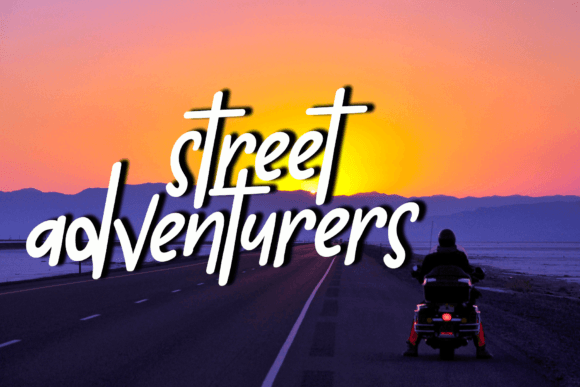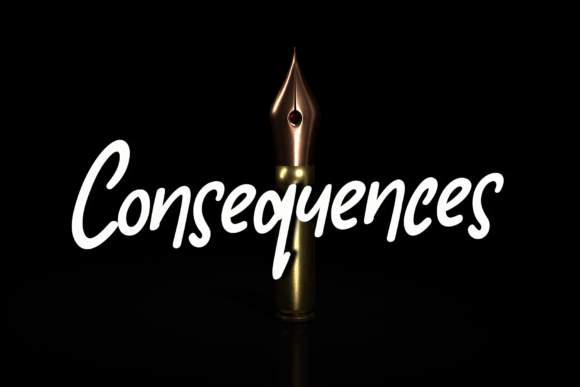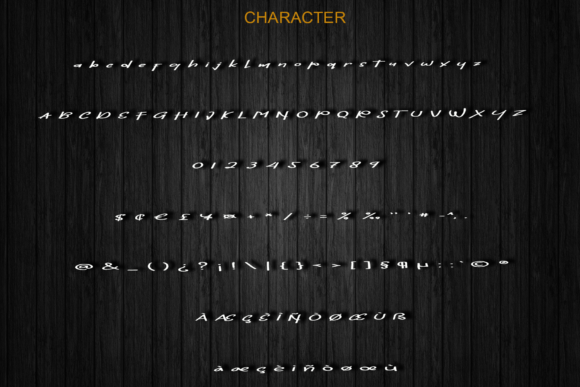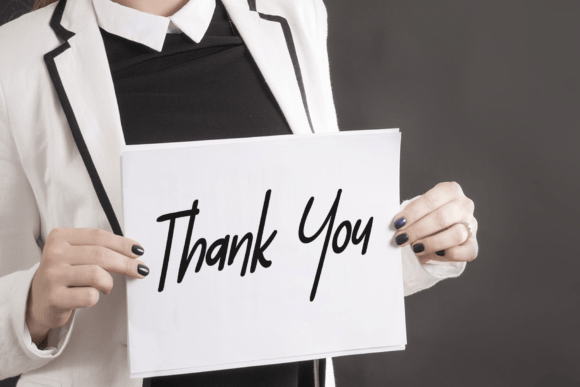
Introduction to Against History Font
Against History is a clean, relaxed and friendly handwritten font.
Suitable to a wide variety of designs due to its neat and simple style, this font has the potential to become your favorite go-to font, no matter the occasion .
Against History Font offers exceptional quality and versatility, making it a valuable addition to your design toolkit. Whether you’re creating for personal projects or commercial use, Against History Font delivers professional results.